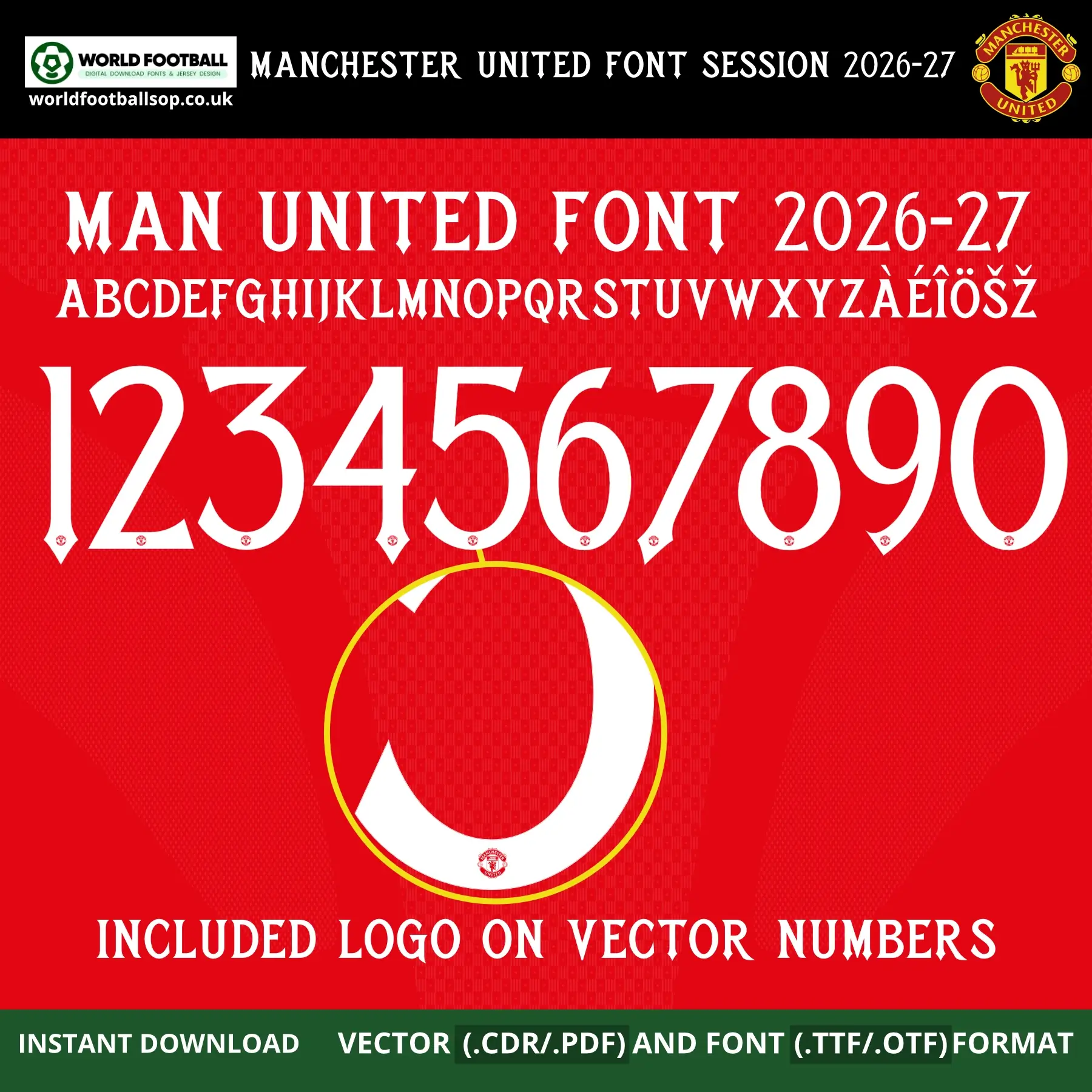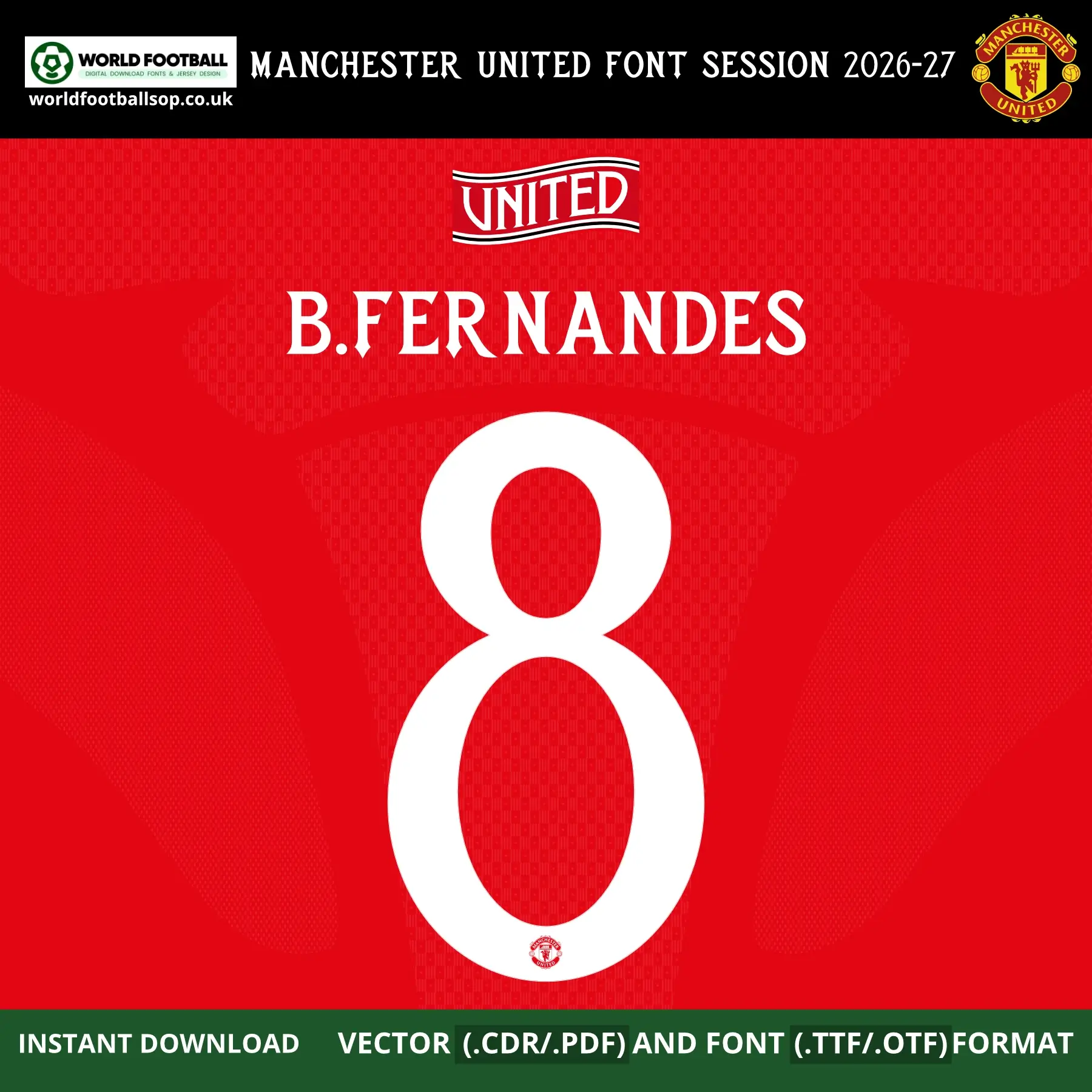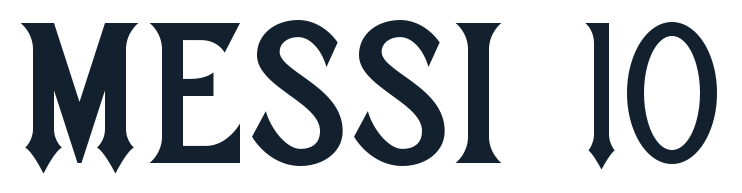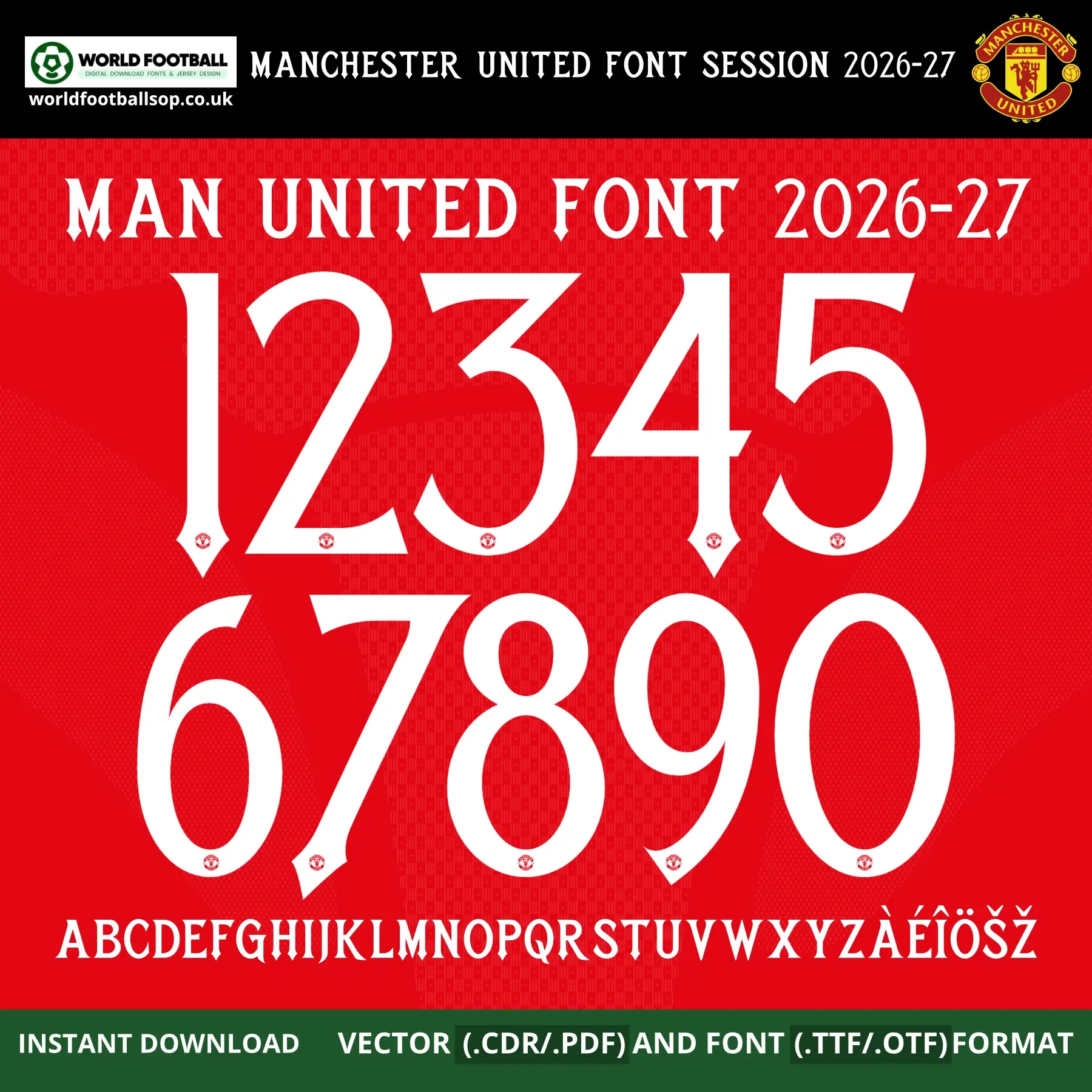
Manchester United Font 2026-27 UCL & FA Cup - Officialβstyle Jersey Typography
This Manchester United Font 2026-27 recreates the elegant, serif-style lettering used on Manchester United's iconic red home shirts for the 2026-27 UEFA Champions League and FA Cup seasons. The numbers and letters feature a distinctive tall, narrow design with graceful pointed serifs at the base of each character - a font football style that is immediately recognisable as Old Trafford's match-day typography, combining classic tradition with a modern premium finish on the iconic red home kit background. It is perfect for fans, designers and print shops who want authentic-looking names and numbers on custom Man United jerseys and football graphics.
The font is supplied in both desktop formats (TTF/OTF) and scalable vector files so you can work comfortably in your favourite design software. The clean white lettering on the deep red United home kit background seen in the previews mirrors Manchester United's official 2026-27 colour palette, making your mockups and prints look match-ready. Every vector number includes the embedded Manchester United crest logo for maximum authenticity, visible at the base of each character.
Manchester United crest logo embedded on every vector number and letter
Full uppercase alphabet A-Z and numbers 0-9 with extended accents (Γ, Γ, Γ, Γ, Ε , Ε½)
Preview layouts showing complete number set and example name/number combo - B.FERNANDES 8
UCL & FA Cup accuracy: Inspired by the exclusive Manchester United Font 2026-27, valid for both Champions League and FA Cup kit applications
Elegant serif design: Tall, narrow pointed-serif forms give Man United numbers their unique premium identity, clearly distinguishable from regular football fonts